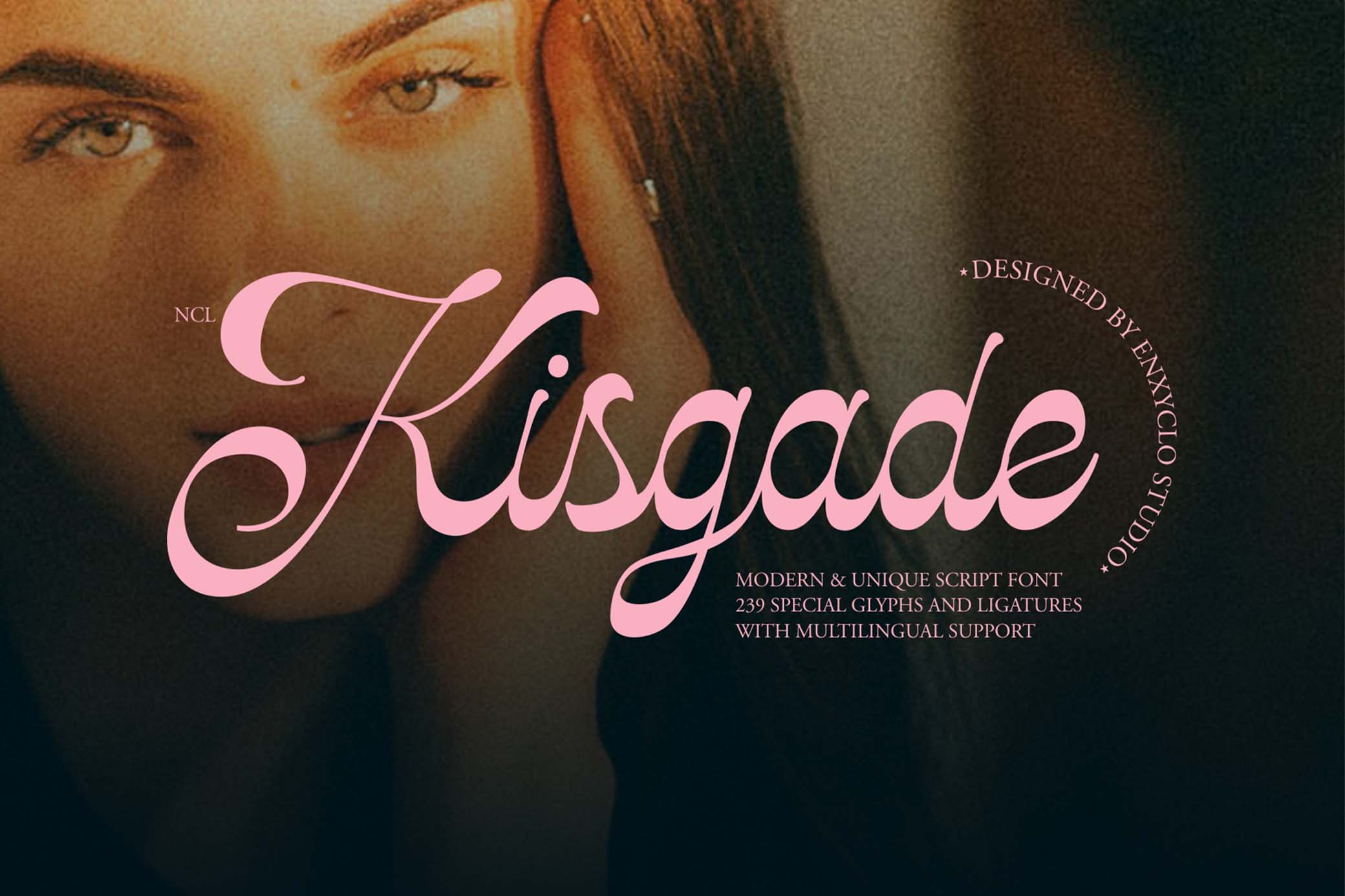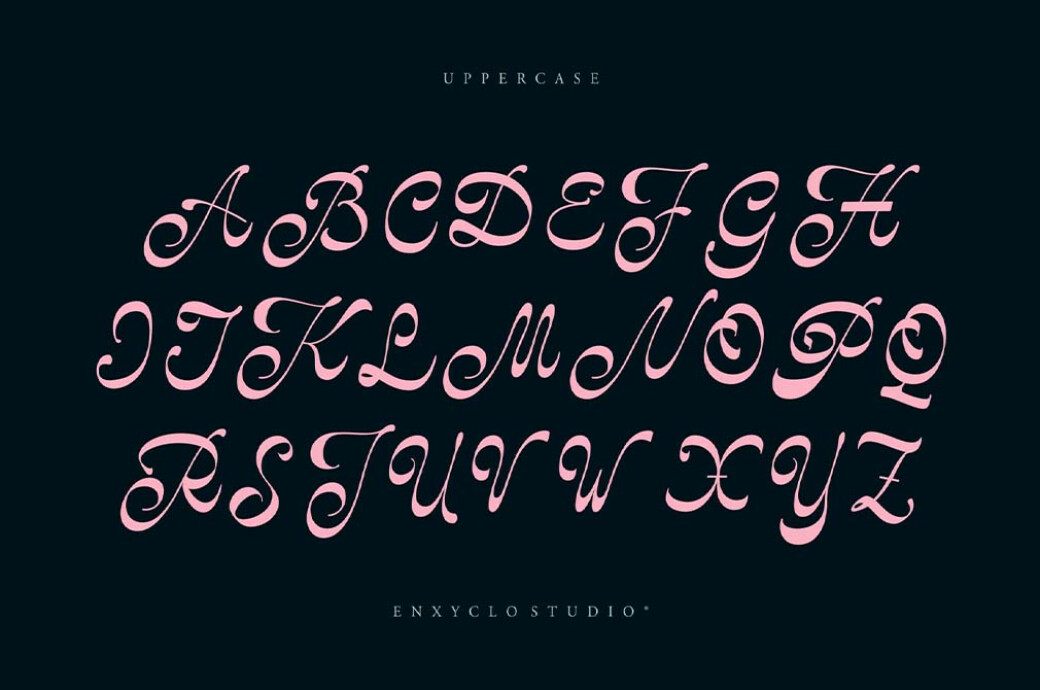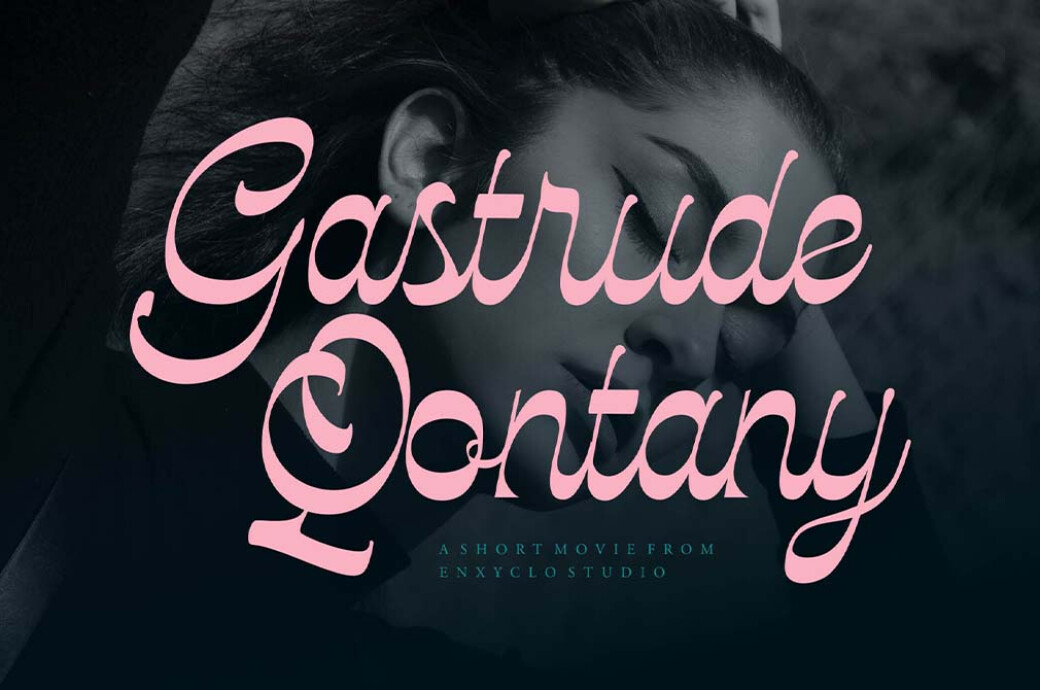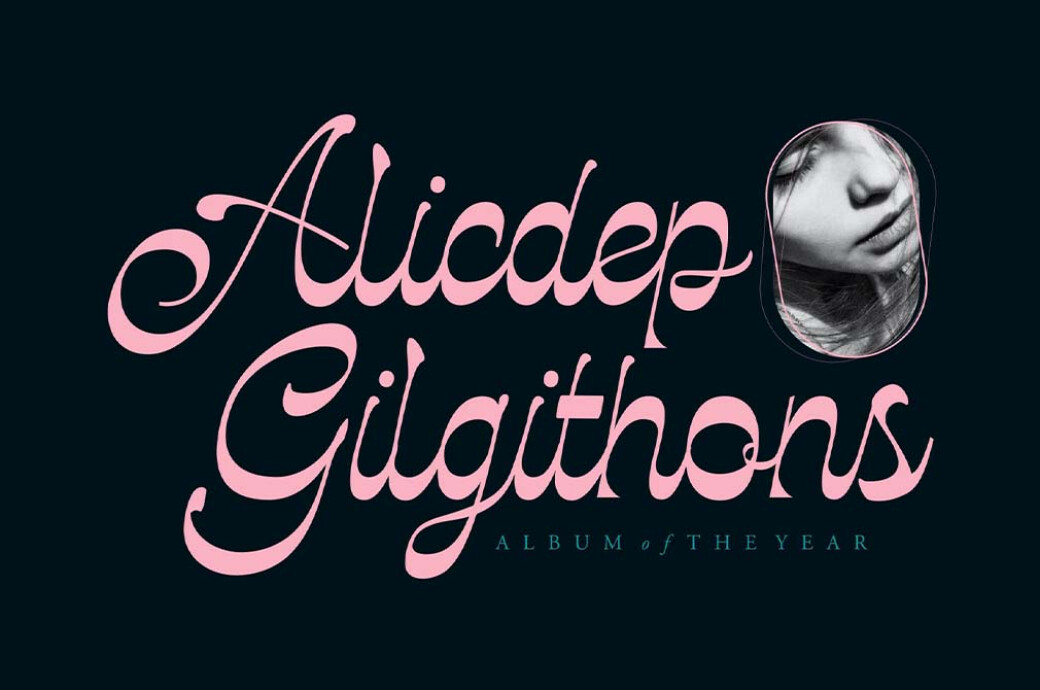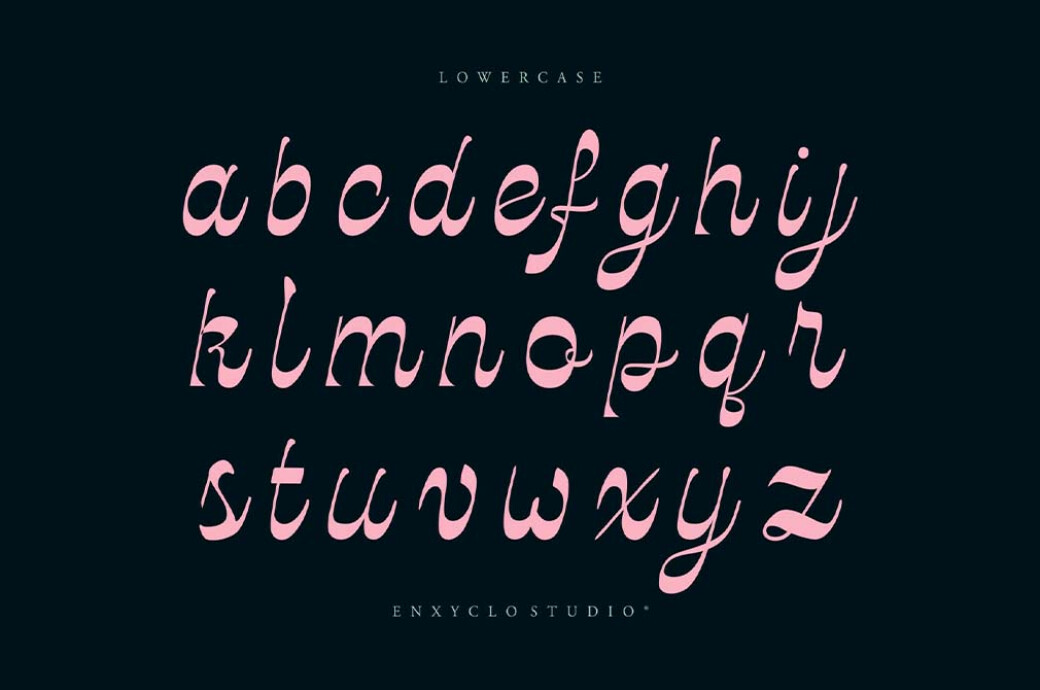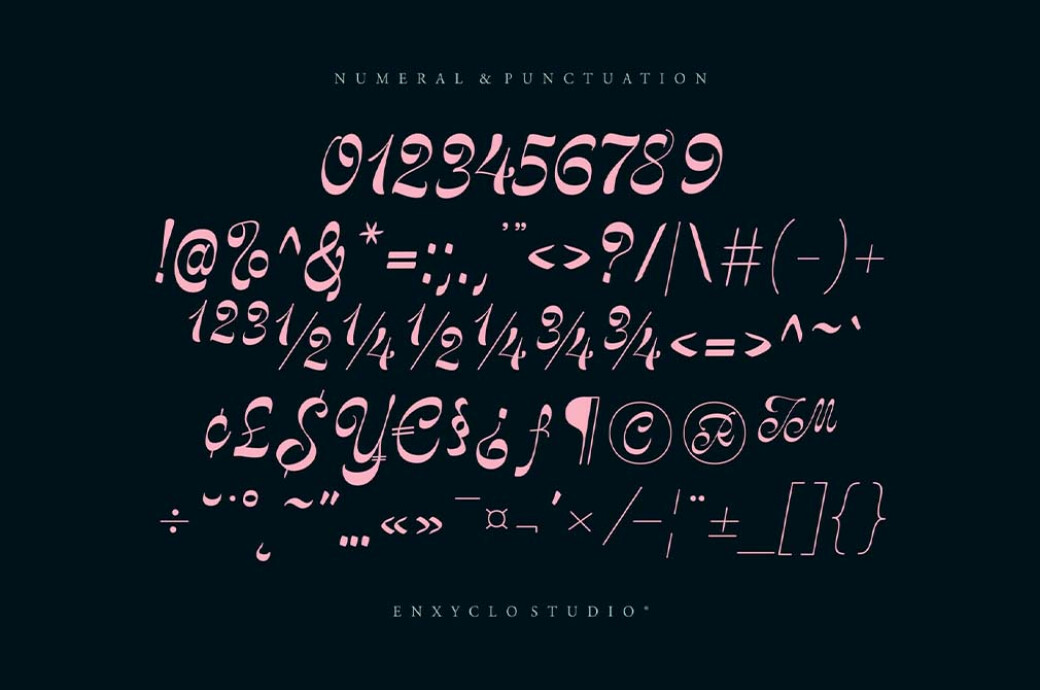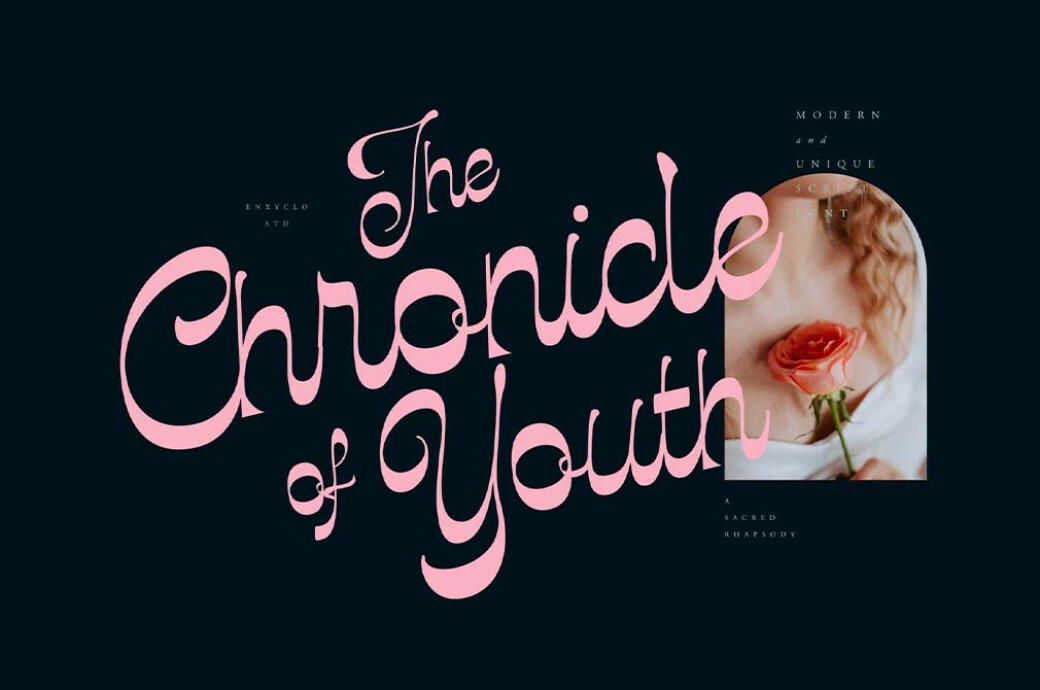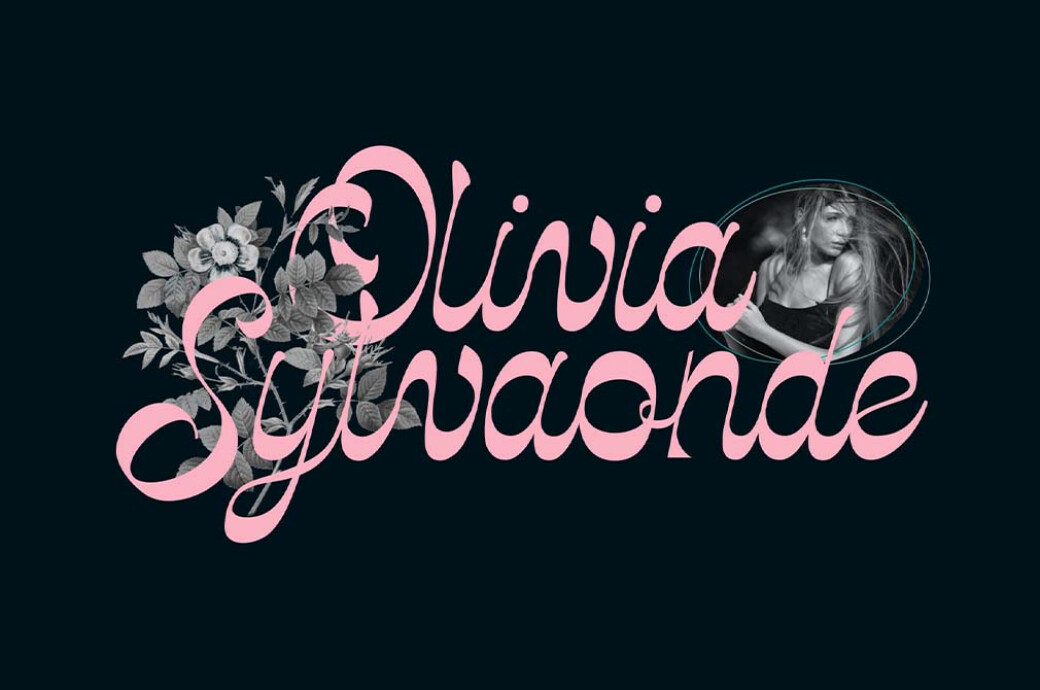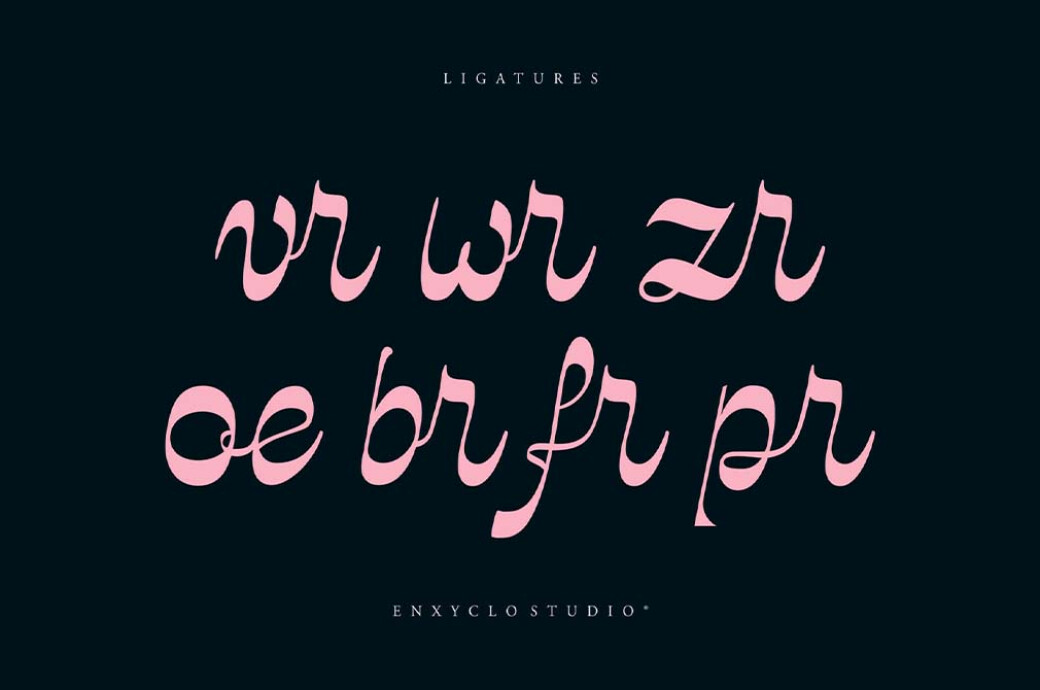
NCL Kisgade — Casual Script Font
If nib-written fonts make you think of copperplate lettering, take a glimpse at Kisgade. You won't be able to take your eyes off it and its finest script shapes polished by a contemporary vibe.
Typography is full of surprises: you think you've seen everything, but then there goes a font merging familiar concepts into something unique and special. Just like NCL Kisgade does. But let's set free all its visual perks and focus on the features that make it even more attractive as a creative tool. The font has 239 glyphs: uppercase and lowercase characters, punctuation, symbols, numbers, multilingual support, and special ligatures.